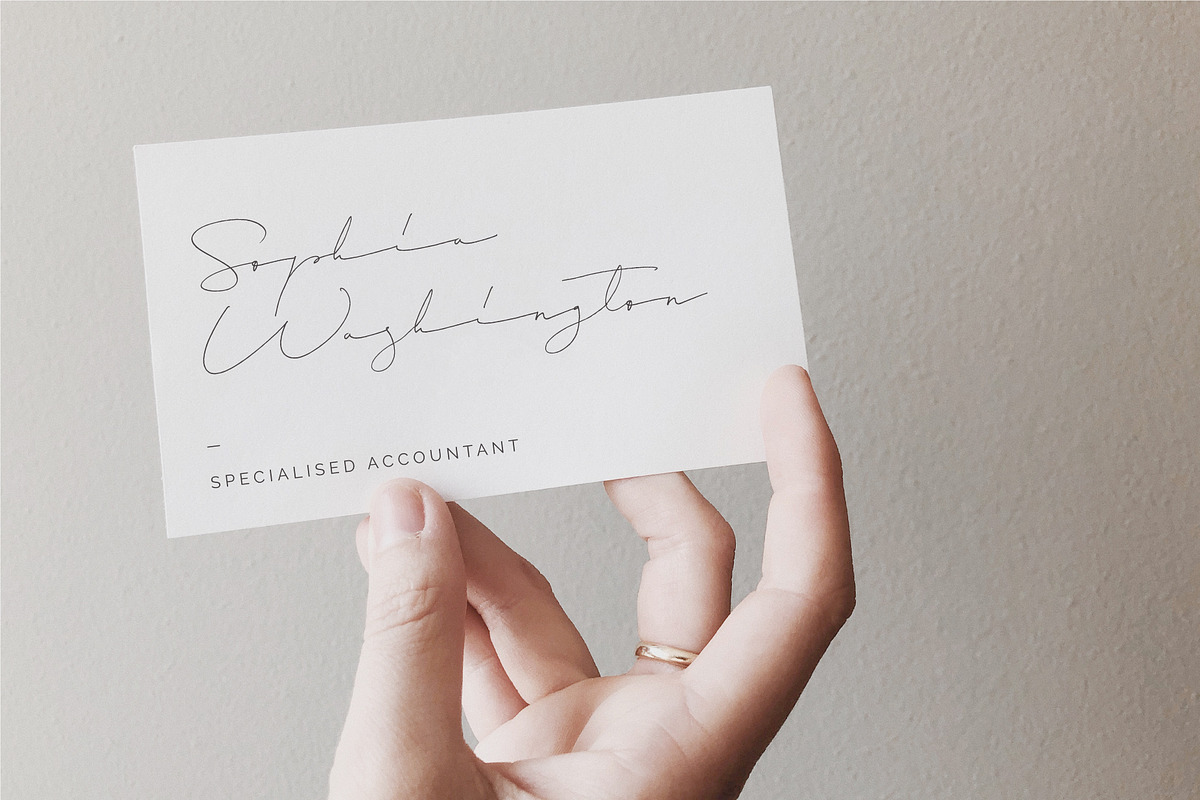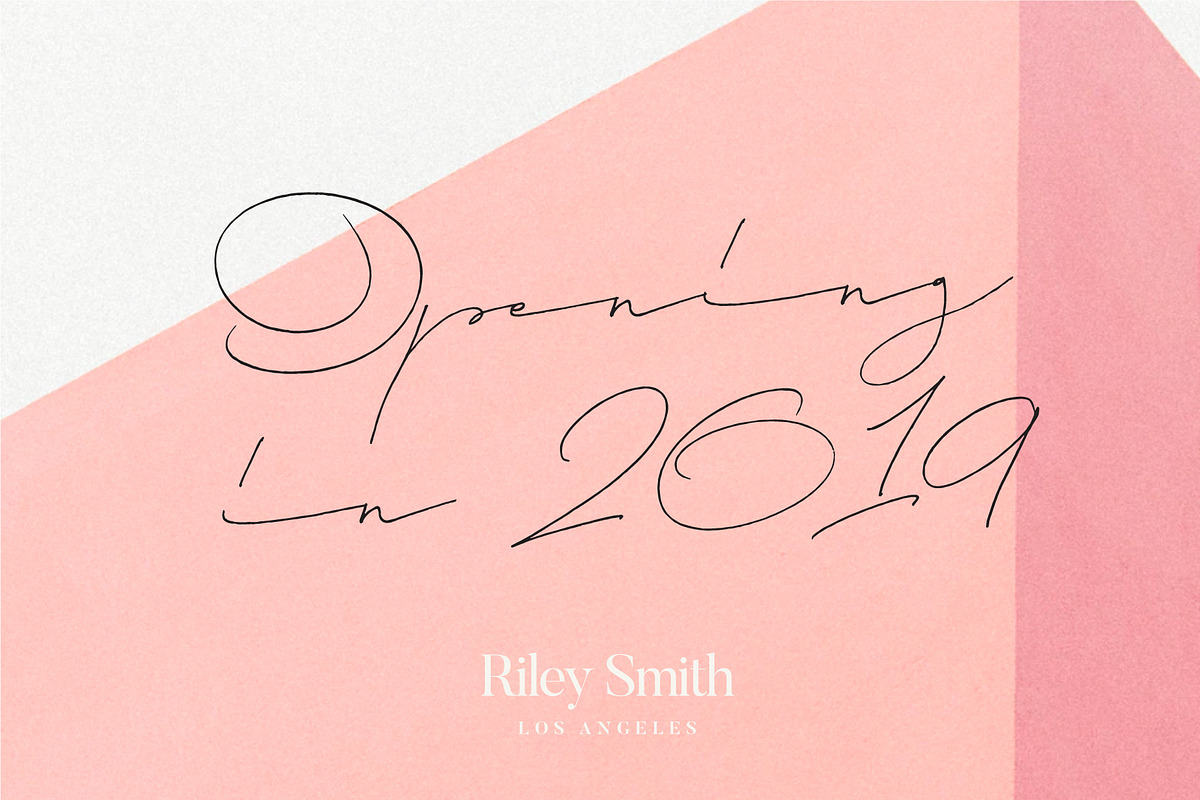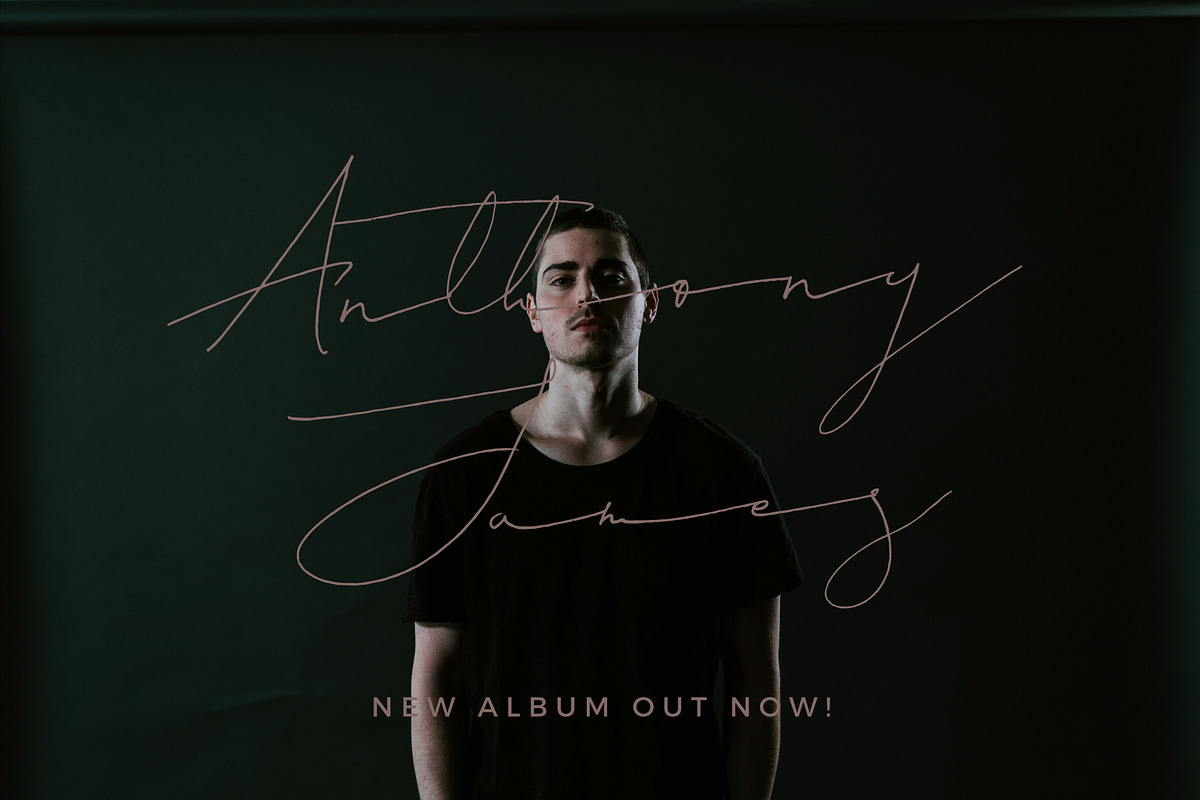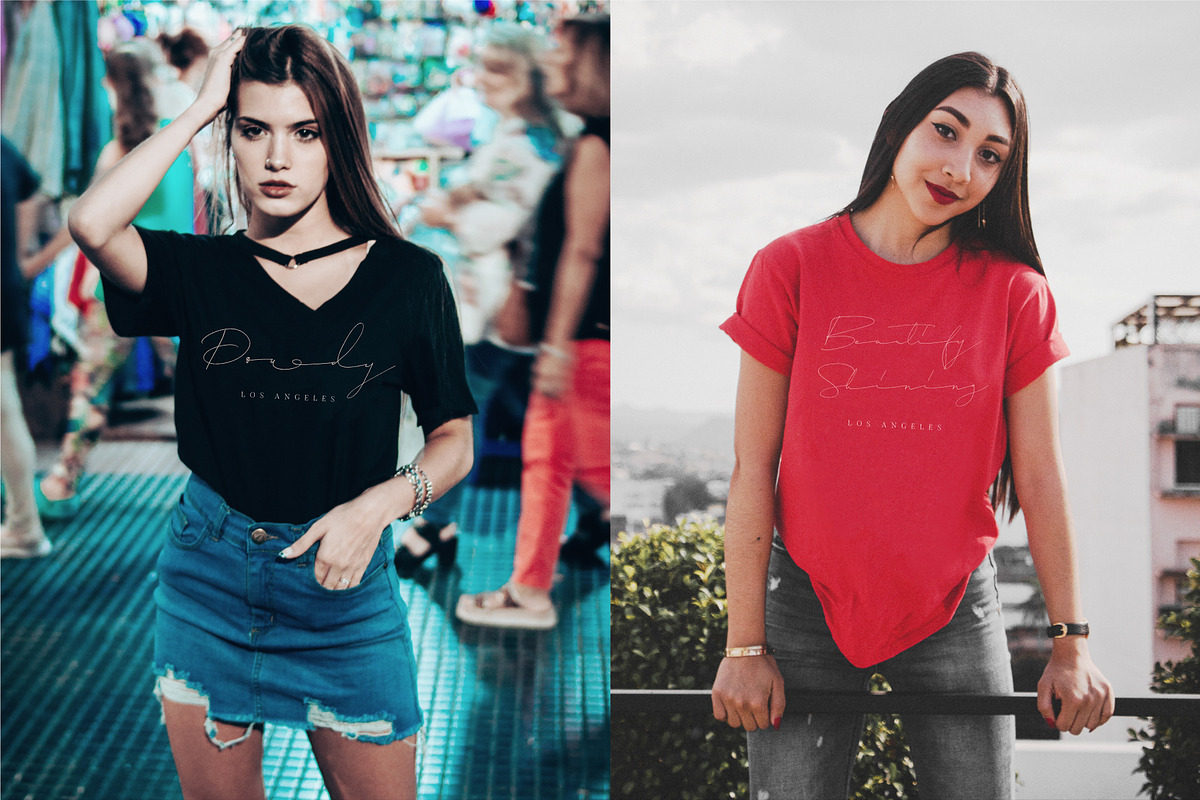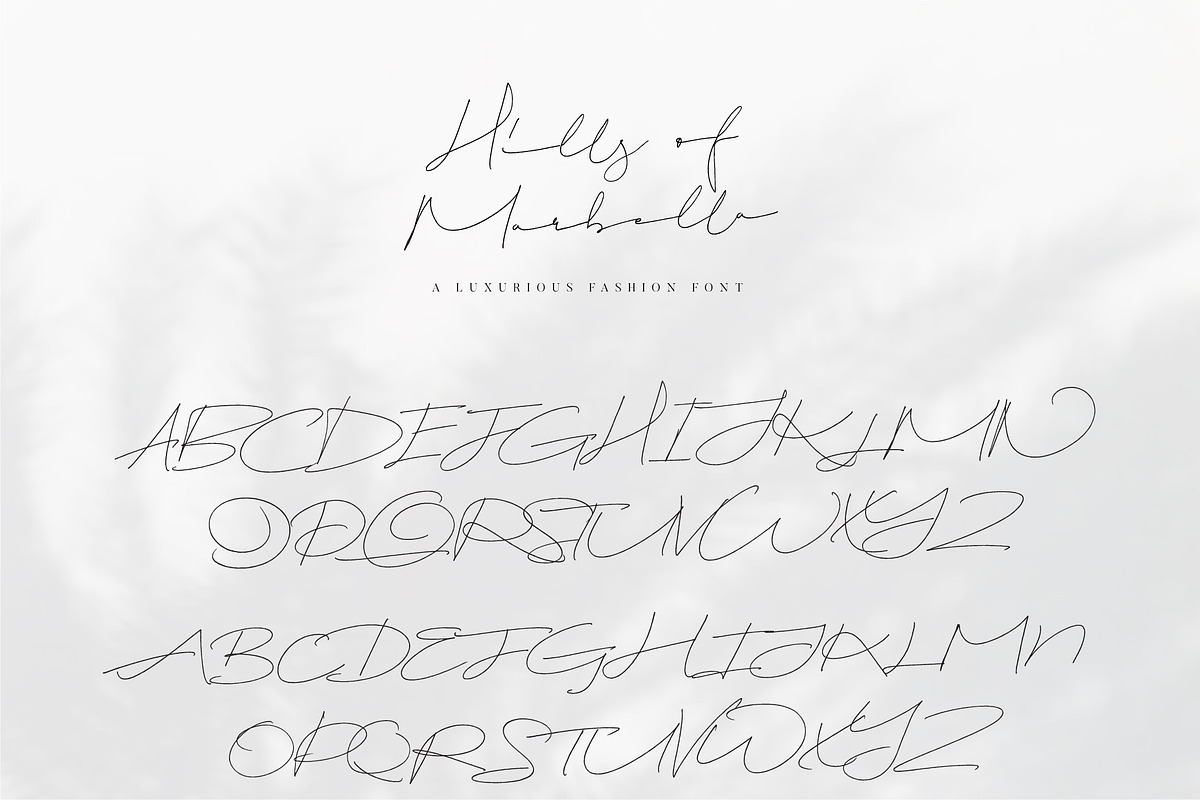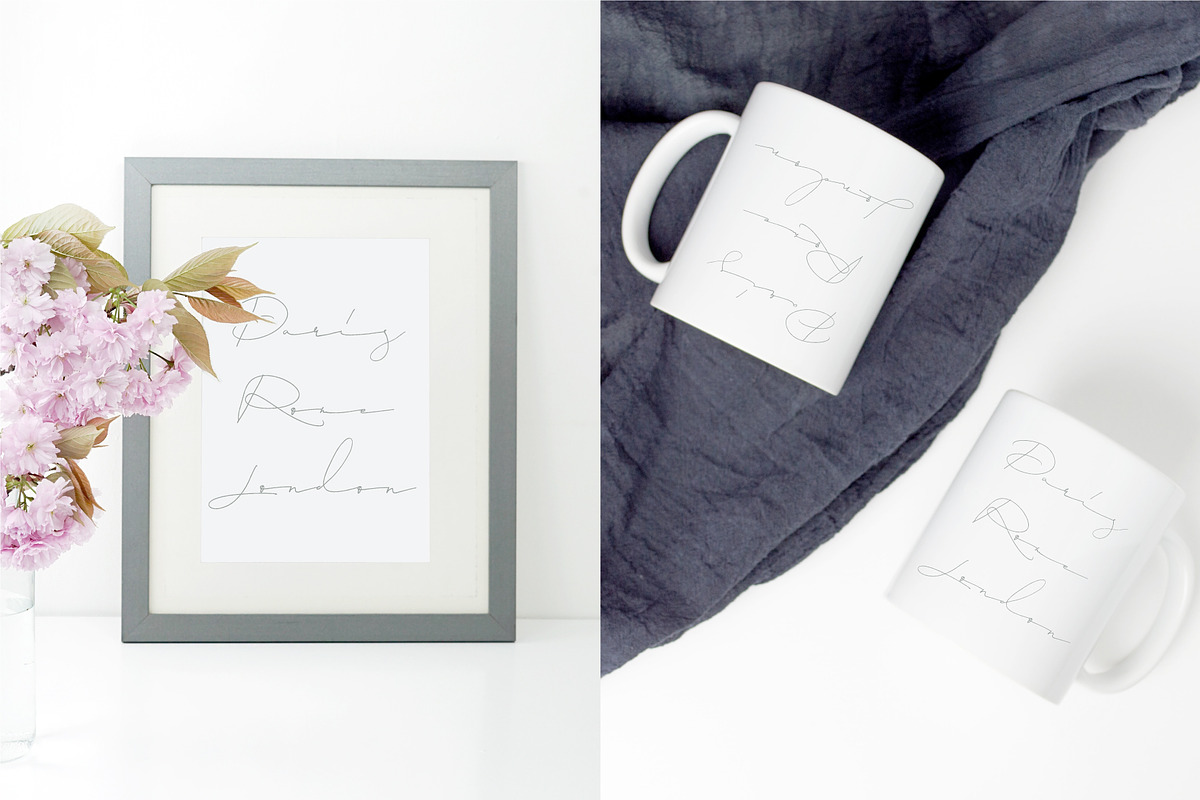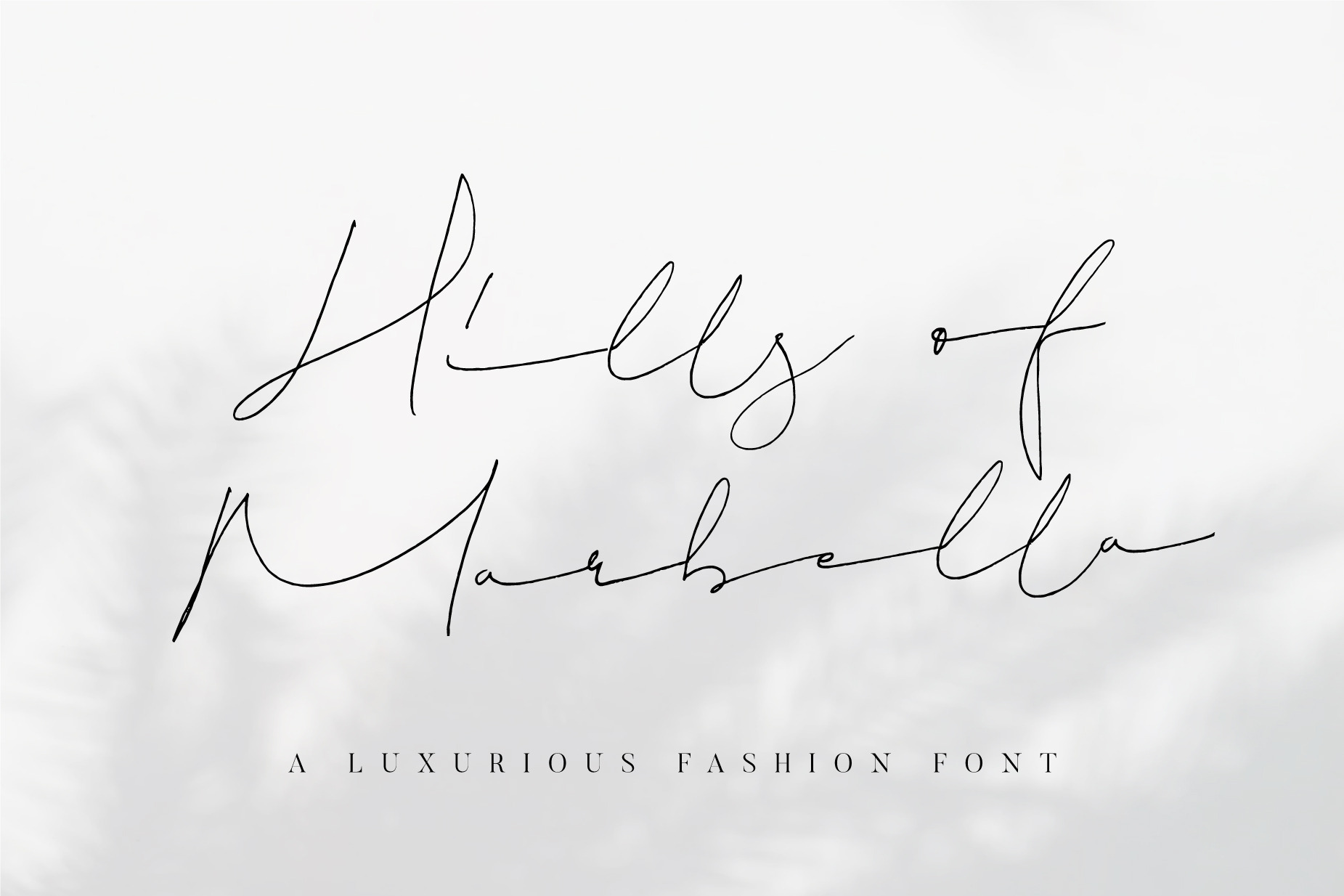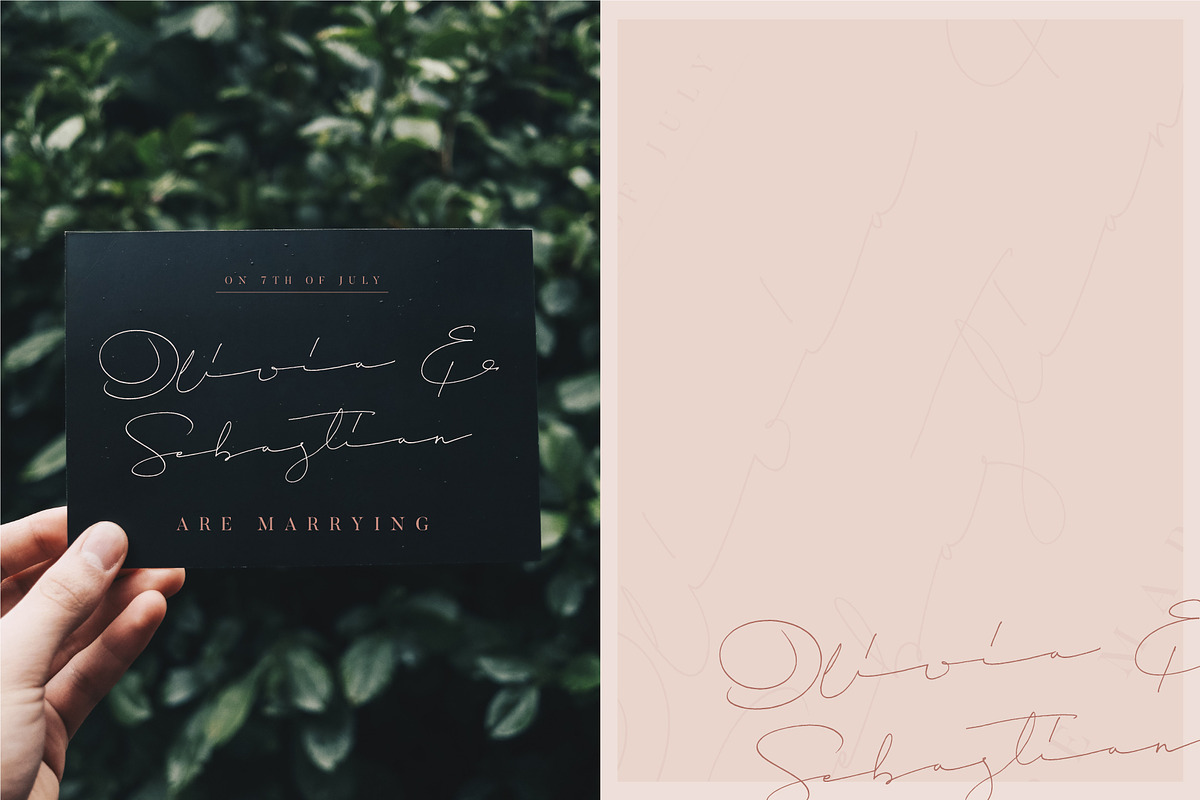
Hills of Marbella Font
Say hello to Hills of Marbella! This beauty is a handwritten luxury font crafted with love and it's perfect for any branding, wedding invitations, website headers and more.
Includes upper and lowercase characters, numerals, punctuations and a wide language support. Alternates for multiple characters (you can check them with the type tester tool).